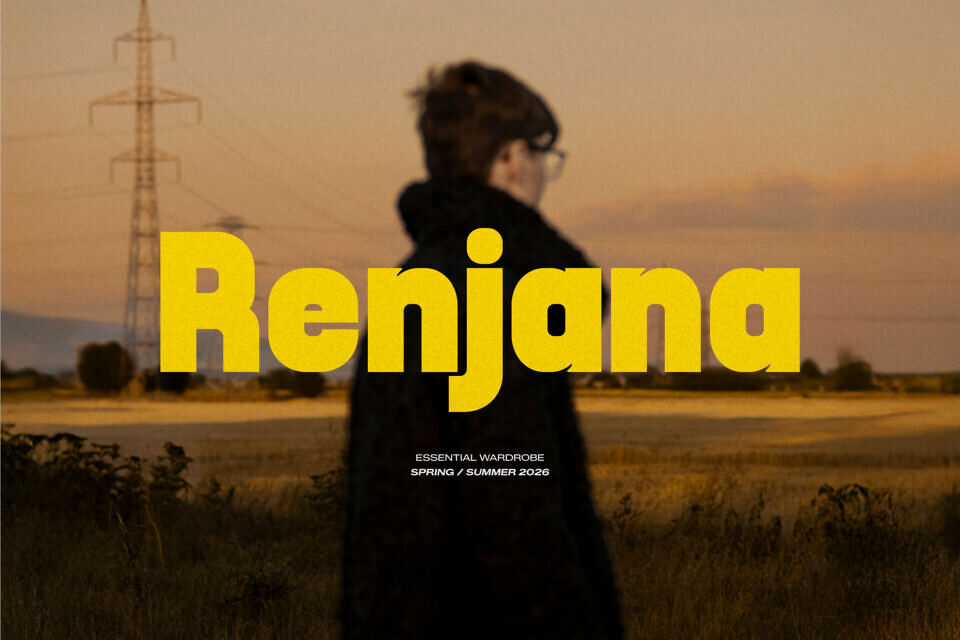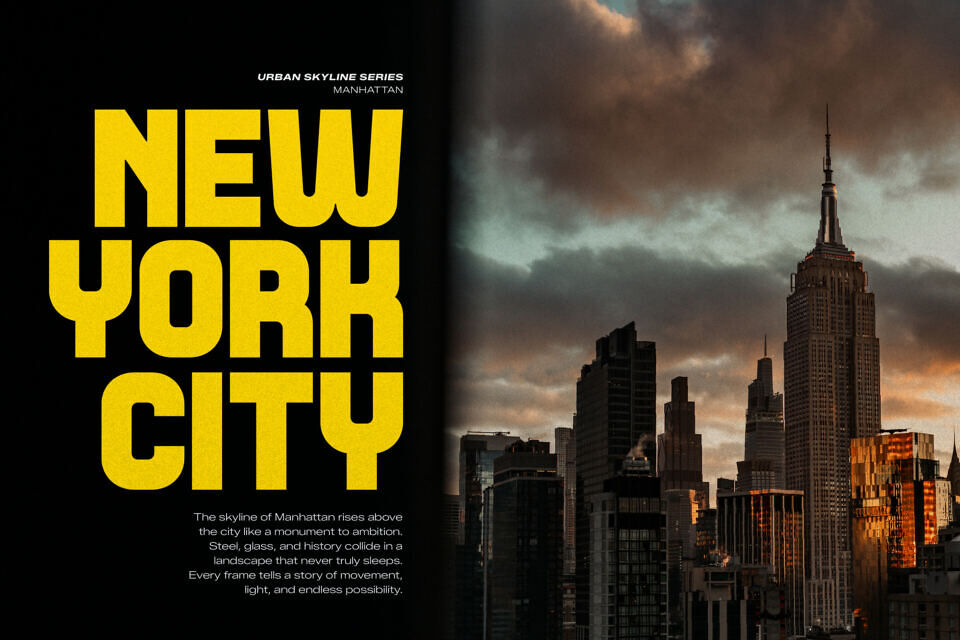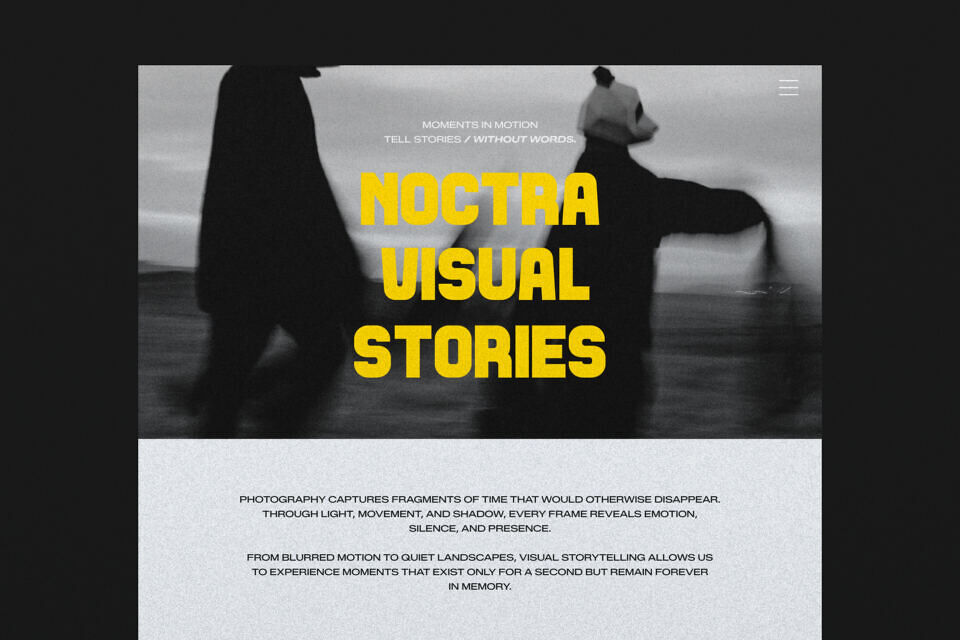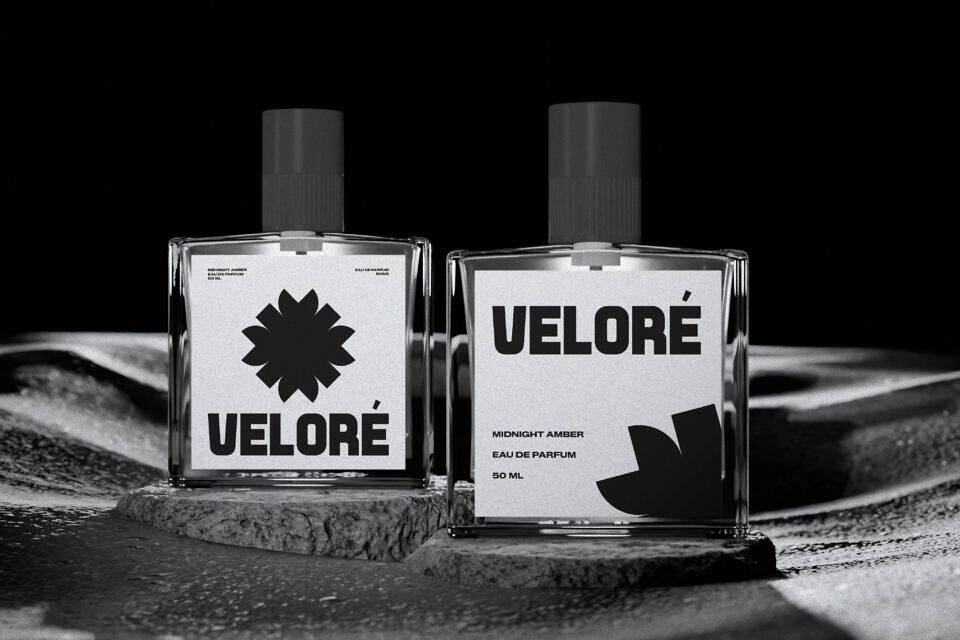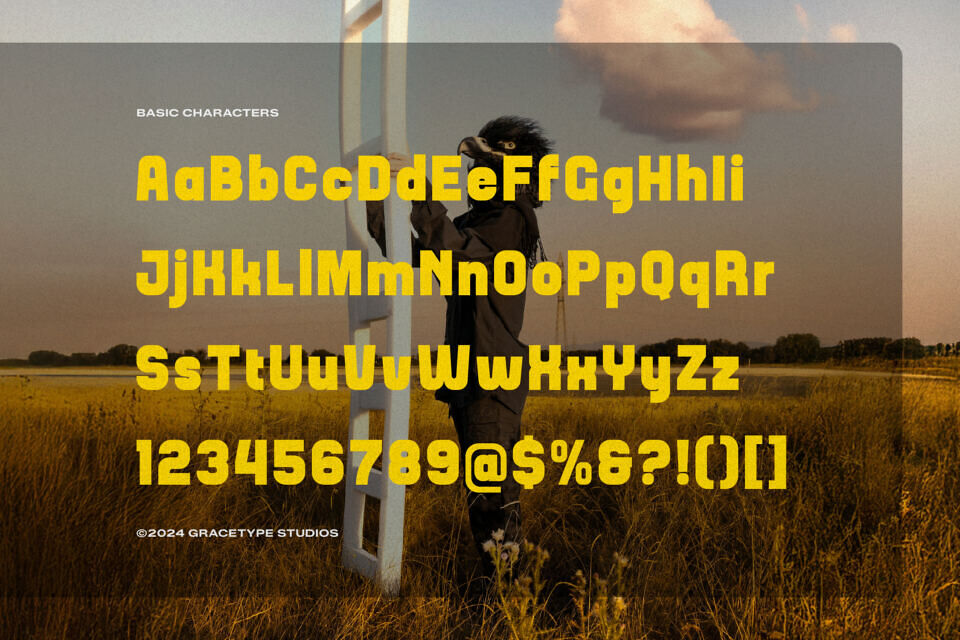
Stalfolk Font
Command attention with Stalfolk, a new display bold sans serif from Gracetype that redefines high-impact typography. This typeface features ultra-thick strokes and a massive x-height, engineered for maximum visibility and a powerful, grounded presence. Perfect for event titles, cinematic posters, and high-impact advertising.
Its chunky, solid letterforms provide an architectural foundation for your designs, making it an absolute powerhouse for headlines. Whether you are leaning into a retro-industrial aesthetic or a clean, modern street-style brand identity, Stalfolk delivers a professional, heavy-weight presence that is impossible to overlook.